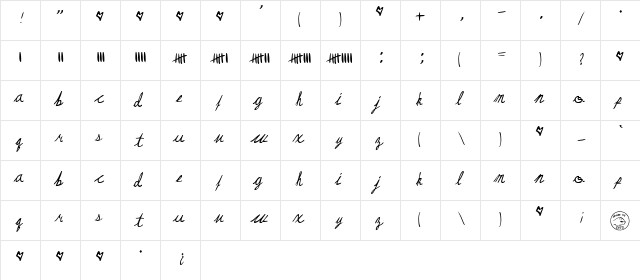
May Queen Regular
| Foundry | [Divide By Zero] Fonts |
| Designer | Tom Murphy 7 |
Design Context for May Queen Typeface
May Queen is a composed and adaptable typeface that performs quietly and consistently across a wide range of design contexts.